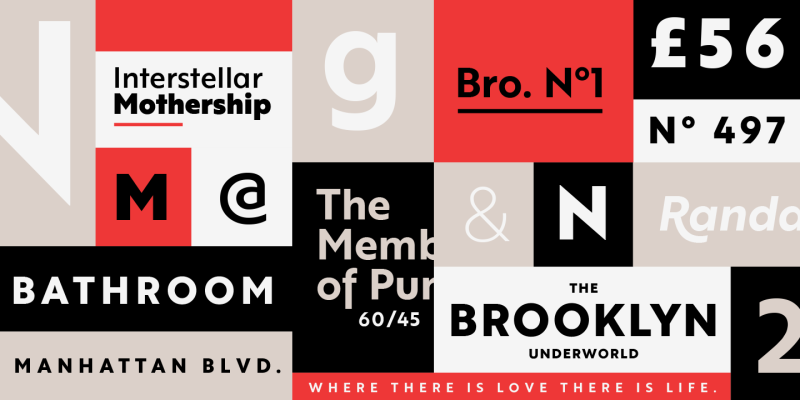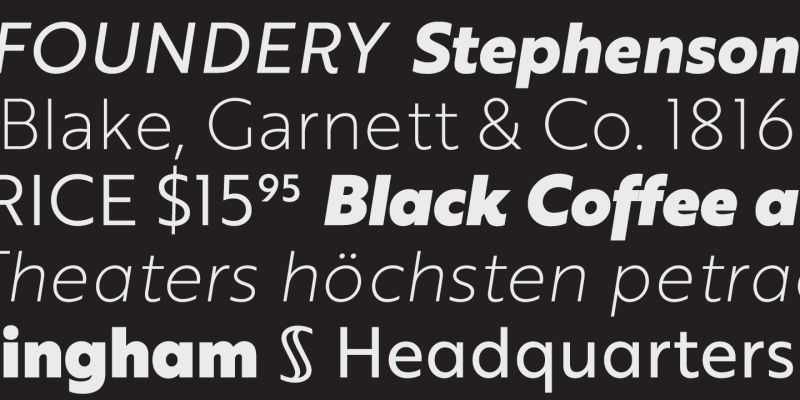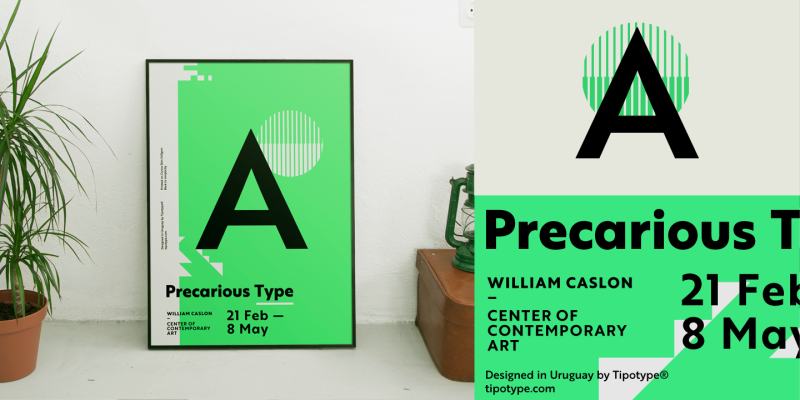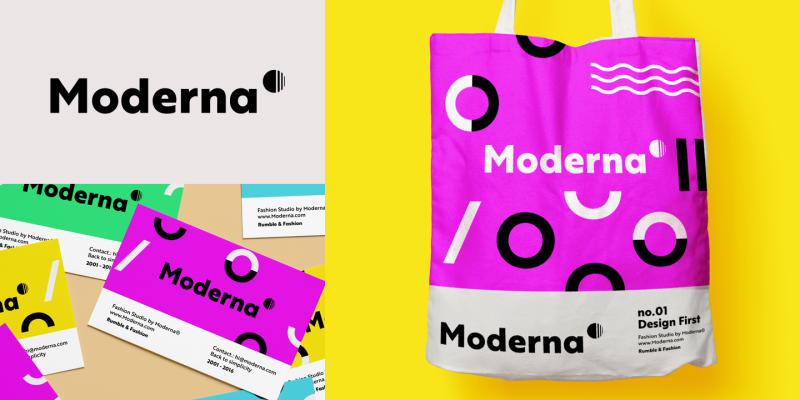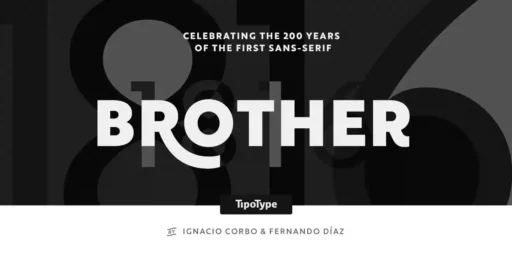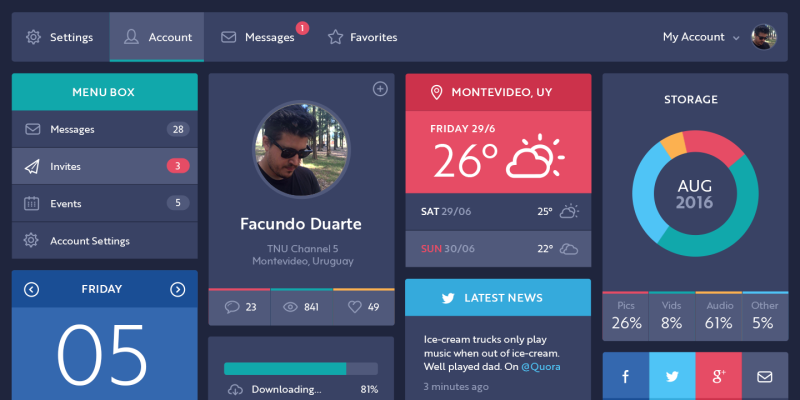
Brother 1816 Font
Brother 1816, a sans serif font family from the Chile-based creative studio TipoType, is a unique typeface that incorporates historical influences with today’s design requirements. The company by Fernando Díaz and Ignacio Corbo wanted to design a new typeface that would be modern and flexible, which can mimic the trends of today’s typography.
The font’s name, Brother 1816, alludes to typography traditions. The number 1816 refers to the early nineteenth century, which is known for the development of the first sans serif fonts. The term “Brother” reflects the typeface’s positioning as a practically oriented and all-around family member that can be useful in any project.
The concept behind the design of the Brother 1816 font was to combine the geometric sauf for its legibility with the more organic humanistic forms. This approach to typography is not unusual for the contemporary design field, which features a growing tendency to blur the lines between various type styles and a preference for multitalented and adaptive typefaces.
The development of Brother 1816 was a deliberate process, and the TipoType team worked on ensuring it had a great font library suitable for many different designs. The typeface includes 32 fonts split into two groups: The normal and printed families each have 16 weights. It thus offers a high level of versatility in use, ranging from thin weights that can be used for refined, premium-level branding to black weights suitable for more attention-catching headlines and advertising.
All the font variants in the Brother 1816 collection contain more than 460 glyphs, including more than 20 stylistic sets, swashes, fractions, and ordinals. This versatility allows Brother 1816 to fit into various design environments, and since it is a studio product, it had to encompass the idea of innovation with freedom.
Another special aspect of Brother 1816 is the humanistic design of the font, which is very legible even when printed in a smaller size. This makes it ideal for detailed branding projects, editorial design, and signage where legibility is of paramount importance. However, its geometric characteristics are quite efficient in large-scale designs that need uniqueness and attention to visualization, such as headlines and posters.
The design of Brother 1816 is quite unique and can be easily adapted to several uses. In branding, it can speak of stability and corporateness or give off the impression of being new-age and progressive based on the weight and style selected. Its most widespread use is in digital design because of its simplicity and readability, making it ideal for application interfaces and electronic publications.
However, the typeface has become popular in editorial design, as it provides legibility without compromising aesthetics. Brother 1816 delivers reliable performance for business documents with texts and minimal designs to make them professional and visually appealing.
Brother 1816 Font is a Sans Serif Fonts font that brings a professional and versatile look to your projects. Brother 1816, a sans serif font family from the Chile-based creative studio TipoType, is a unique typeface that incorporates historical influences with today’s design requirements.